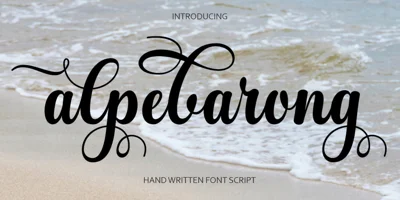
Alpebarong Font
The Alpebarong Font excels in Alpine tourism branding, mountain resort communications, Swiss heritage projects, traditional Alpine festival promotions, mountain lodge signage, European mountain culture materials, hiking and mountaineering publications, and majestic design applications that require Alpine elegance with mountain sophistication and traditional European charm.
What makes the Alpebarong Font so exciting is its exceptional ability to capture the majestic beauty and cultural richness of Alpine traditions through typography that embodies both the grandeur of mountain landscapes and the refined craftsmanship of European mountain culture. This typeface features distinctive letterforms with Alpine characteristics that suggest snow-capped peaks, traditional craftsmanship, and the timeless appeal of mountain heritage that has shaped European culture for centuries. Its mountainous aesthetic speaks to travelers and culture enthusiasts who appreciate both natural majesty and traditional European values, making it perfect for Alpine tourism, mountain resorts, and European heritage organizations requiring typography that projects both cultural authority and natural authenticity.
The Alpebarong Font family encompasses comprehensive weight variations from Regular to Bold, each maintaining the font's signature Alpine character and European sophistication. The collection includes Medium and Bold styles with enhanced mountain characteristics that reinforce the font's traditional appeal and Alpine authority. This majestic font system ensures Alpine tourism providers and European heritage organizations have access to typography that conveys genuine mountain culture while creating immediate connection to concepts of Alpine traditions, European craftsmanship, and mountain hospitality excellence.
Perfect for Alpine resorts, European tourism organizations, mountain culture festivals, and creative professionals working on projects that celebrate Alpine heritage and European mountain traditions with authentic sophistication. The font's Alpine appeal makes it invaluable for mountain tourism marketers, European cultural preservationists, and Alpine hospitality providers developing communications that must honor mountain traditions while engaging international audiences. Download Alpebarong Font today and ascend to typographic peaks with this exceptional typeface that climbs with Alpine elegance while delivering European sophistication and mountain authenticity for cultural heritage communications.